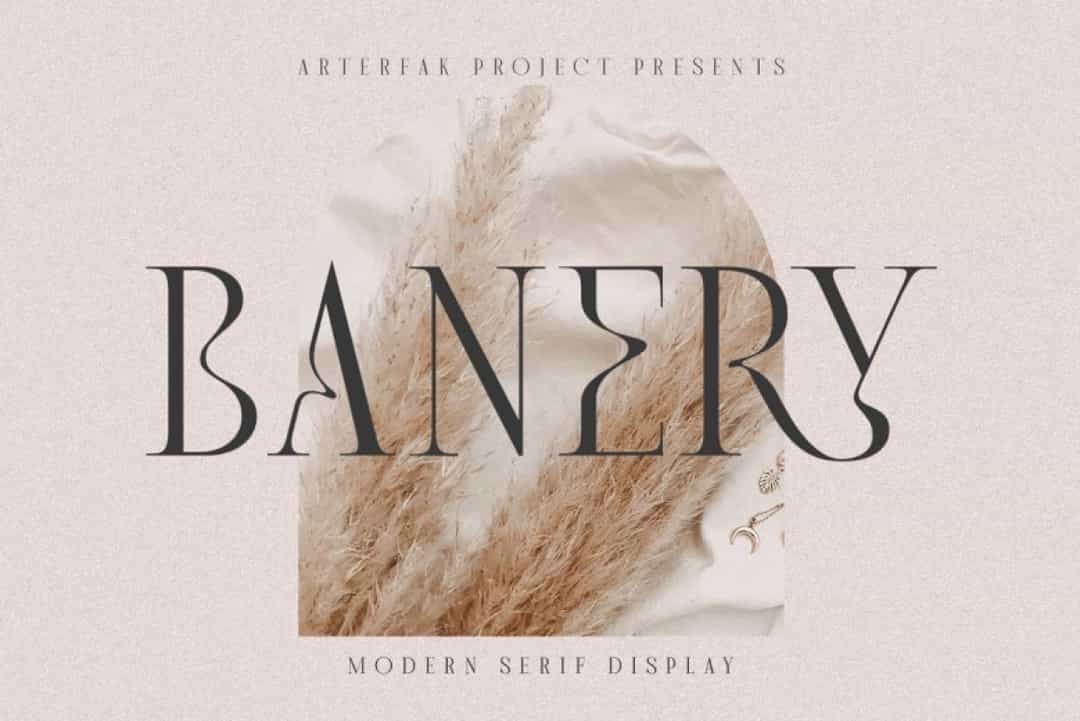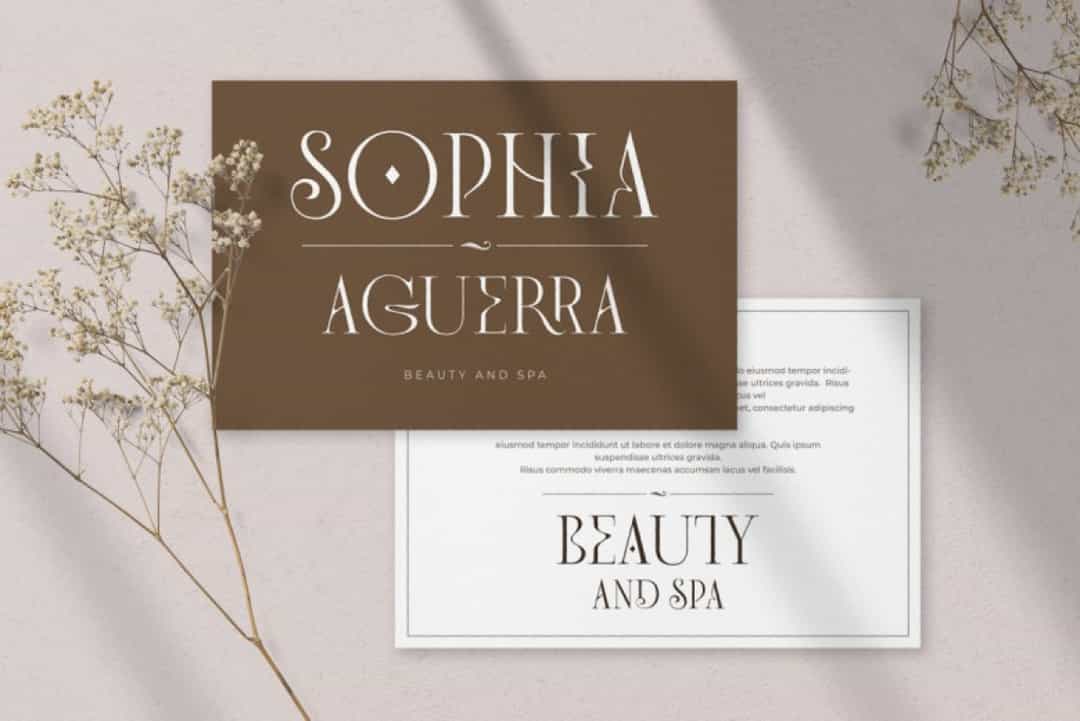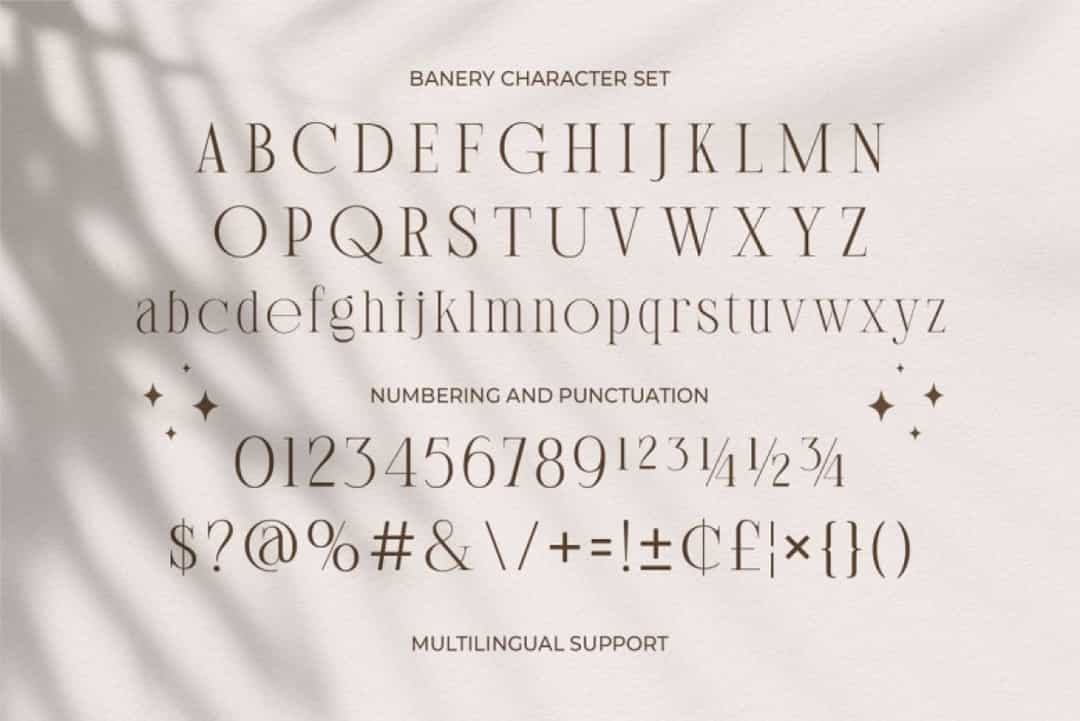
Banery is a contemporary minimalist serif font. Featuring striking contrasts of strokes and alternate characters with unique shapes that provide stunning twists that give Banery its beautiful elegant, sophisticated, and unique appearance.